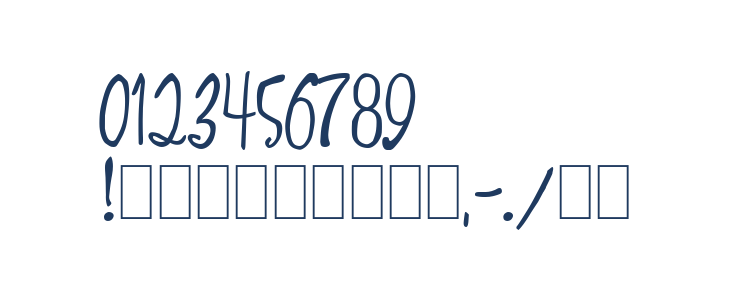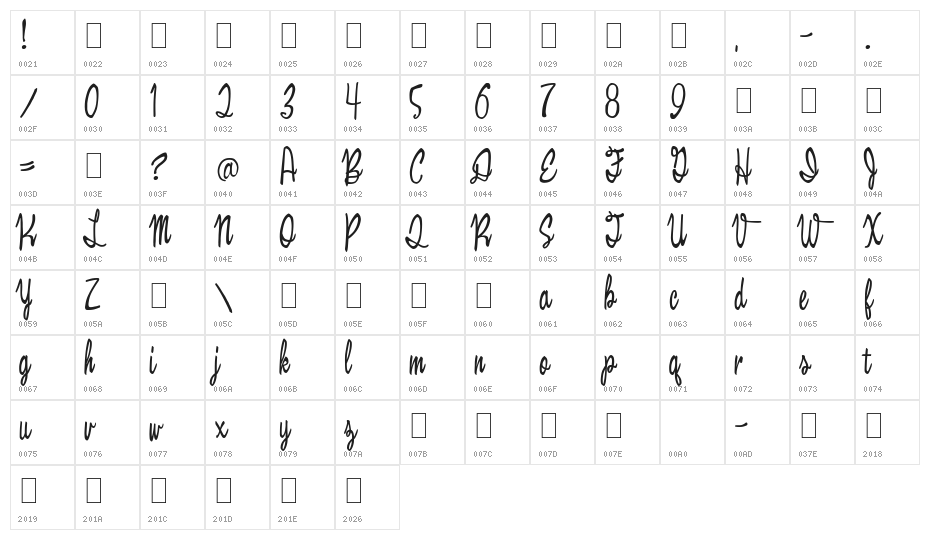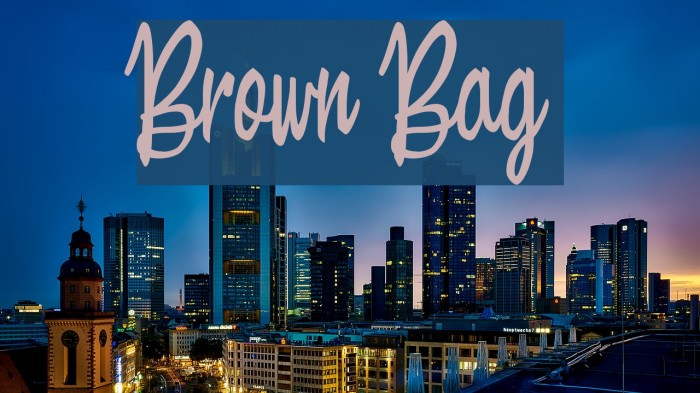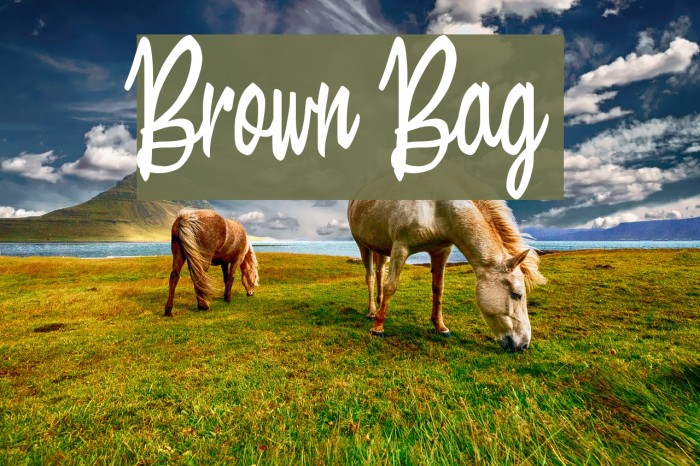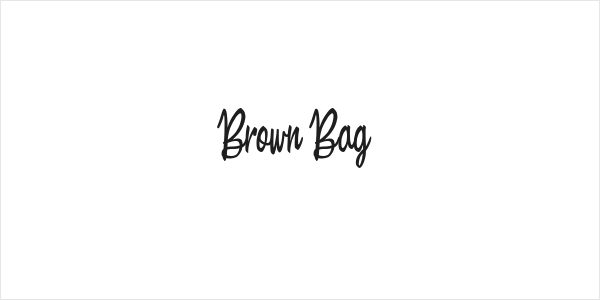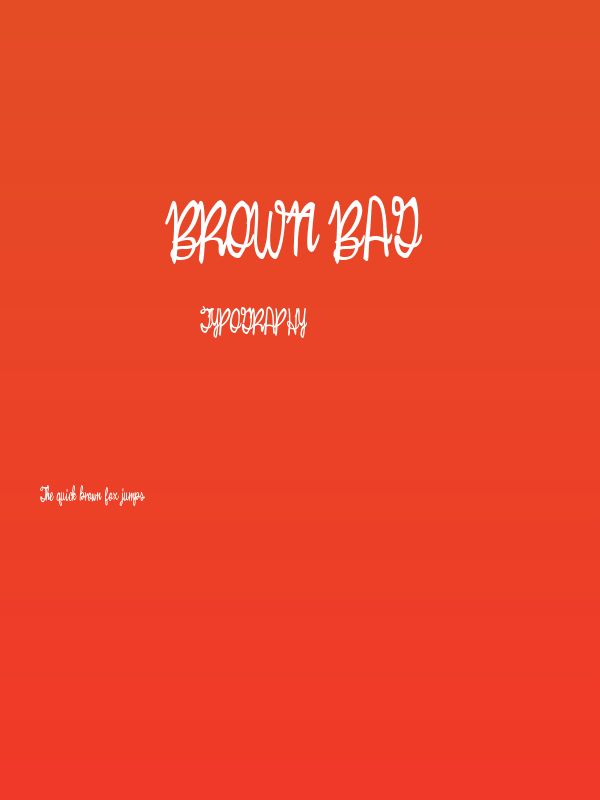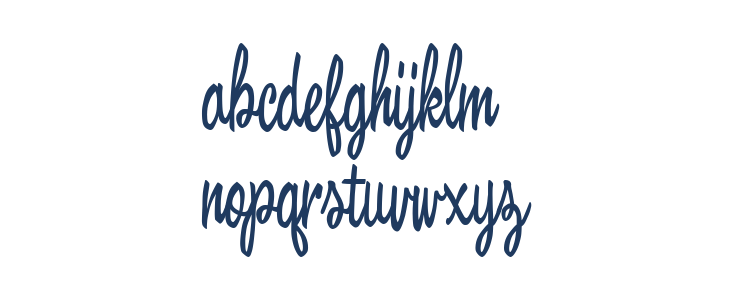
Brown Bag Font
Brown Bag Description
This font features a playful and energetic script style, characterized by its bold, flowing strokes and dynamic curves. The uppercase letters are particularly expressive, with exaggerated loops and swirls that give the font a lively and whimsical appearance. The lowercase letters maintain a consistent style, with a slightly more restrained but still fluid form. The numbers are clear and legible, matching the overall aesthetic of the font. This font is ideal for projects that require a touch of personality and flair, such as invitations, greeting cards, or branding materials. Its unique style makes it stand out, while still being readable and versatile.